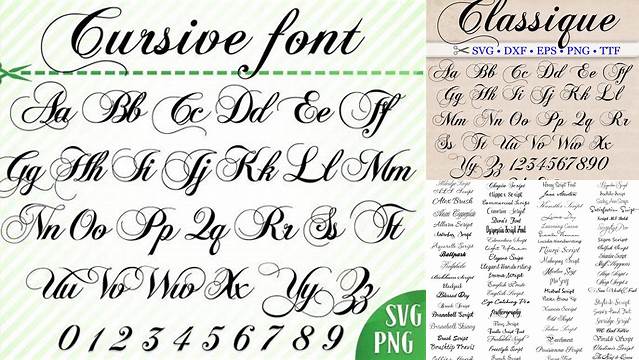
Free Cursive Fonts: Copy & Paste Elegant Styles
Hey guys! Are you looking to add a touch of elegance and sophistication to your projects? Maybe you're designing invitations, crafting social media posts, or just want to jazz up your notes. One of the easiest ways to do this is by using elegant cursive fonts. And the best part? You can easily copy and paste them for free! In this article, we'll dive deep into the world of cursive fonts, explore where you can find them, and how to use them effectively. So, grab a cup of coffee, get comfy, and let's get started!
What are Elegant Cursive Fonts?
When we talk about elegant cursive fonts, we're referring to typefaces that mimic the flowing, connected strokes of handwriting. Think of the beautiful calligraphy you might see on wedding invitations or the stylish signatures of historical figures. Cursive fonts bring a sense of grace and sophistication to any text, making them perfect for projects where you want to convey a sense of formality, creativity, or personalization. These fonts often feature loops, swirls, and varying stroke thicknesses, adding visual interest and a human touch.
But why are they so popular? Well, cursive fonts evoke a sense of tradition and artistry. They remind us of a time when handwriting was a primary form of communication and a skill that was highly valued. Using a cursive font can instantly elevate your design, making it feel more premium and unique. Whether you're working on a wedding invitation, a logo, or a website header, a well-chosen cursive font can make a lasting impression.
However, it’s essential to use cursive fonts judiciously. Because they are more ornate than standard fonts, they can sometimes be harder to read, especially in large blocks of text. The key is to use them sparingly, perhaps for headings, titles, or short quotes, where their elegance can shine without sacrificing readability. Think of them as the jewelry of your design – a little goes a long way!
Where to Find Free Elegant Cursive Fonts
However, it's crucial to pay attention to the licensing information on DaFont. While many fonts are free for personal use, some may require a license for commercial projects. Always double-check the terms before using a font in a project that you plan to sell or use for business purposes. Despite this caveat, DaFont remains a treasure trove for font enthusiasts, offering a wide array of unique and beautiful cursive fonts.
3. Font Squirrel
If you're looking for fonts that are 100% free for commercial use, then Font Squirrel is your go-to destination. This website curates high-quality fonts that are explicitly licensed for commercial use, meaning you can use them in your projects without worrying about licensing issues. Font Squirrel has a dedicated section for script and cursive fonts, making it easy to find the perfect typeface for your needs.
What sets Font Squirrel apart is its commitment to quality. The fonts available here are often created by professional designers and are meticulously crafted to ensure they look great in a variety of contexts. You'll find a range of styles, from elegant and traditional to modern and quirky, giving you plenty of options to choose from. Plus, Font Squirrel offers a handy “Font Identifier” tool, which can help you identify a font from an image – a super useful feature if you've seen a font you love but don't know its name.
And don't forget the tips we discussed for using cursive fonts effectively. Prioritize readability, choose the right context, create contrast, and remember that less is more. By following these guidelines, you can harness the beauty of cursive fonts without sacrificing clarity and professionalism. Now go forth and create something amazing with your newfound font knowledge! Happy creating, guys!